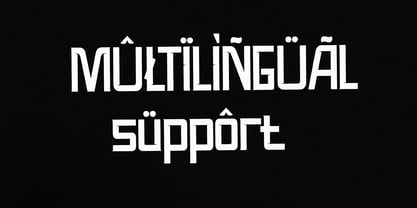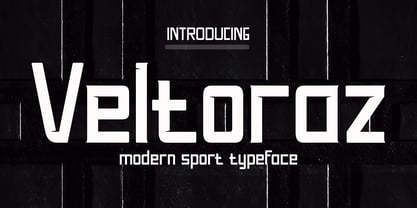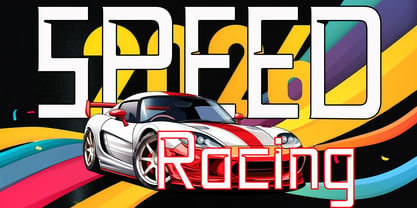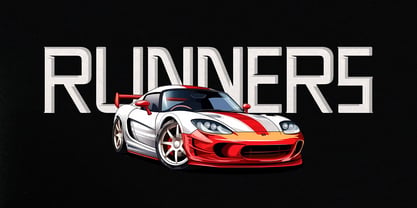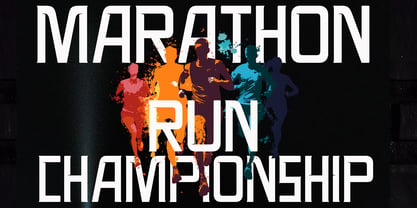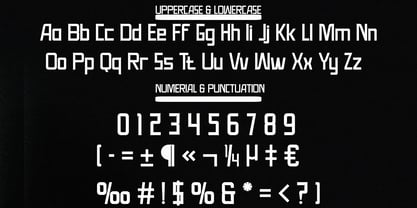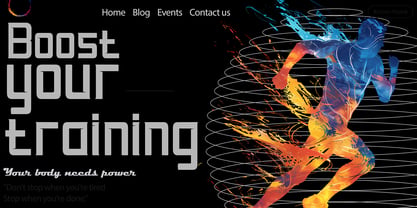
Veltoraz
by Canden Meutuah
The Veltoraz Font Family was designed by Canden Meutuah and published by Canden Meutuah. Veltoraz contains 1 styles. More about this family
Veltoraz is a striking sports font characterized by wide, bold letters and a contemporary, dynamic design. Ideal for high-speed car racing titles, running competitions, cycling events, automotive game logos, monograms, and various sports applications, this font stands out in bold typography. It is also perfect for posters, logo designs, editorial titles, album covers, and fashion branding. Veltoraz captures attention with its unique flair and modern aesthetic. With excellent readability and versatility in size, it conveys a sense of power, thickness, and speed. Designed for a fast-paced feel, Veltoraz is a must-have for anyone looking to make a bold statement in their designs.